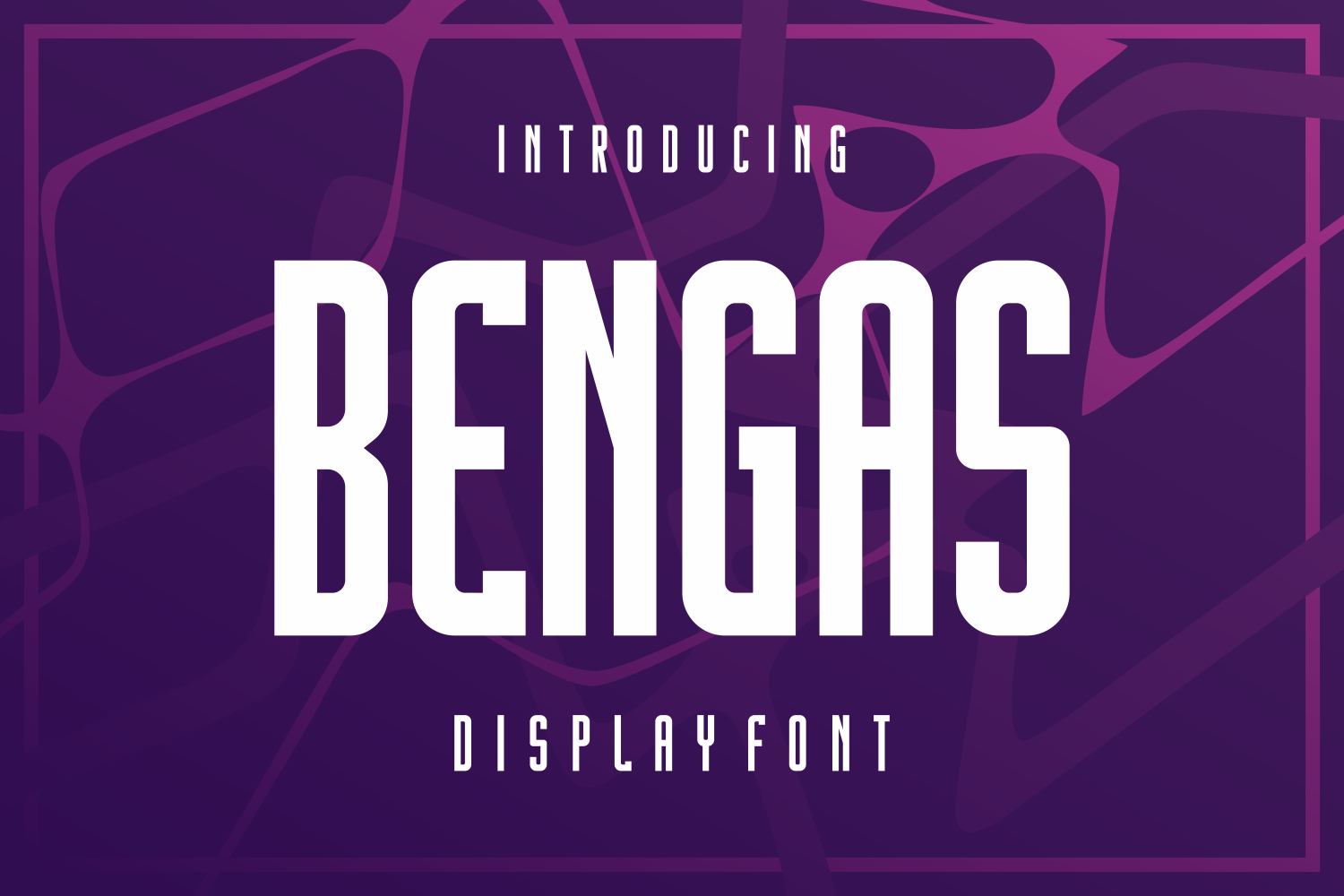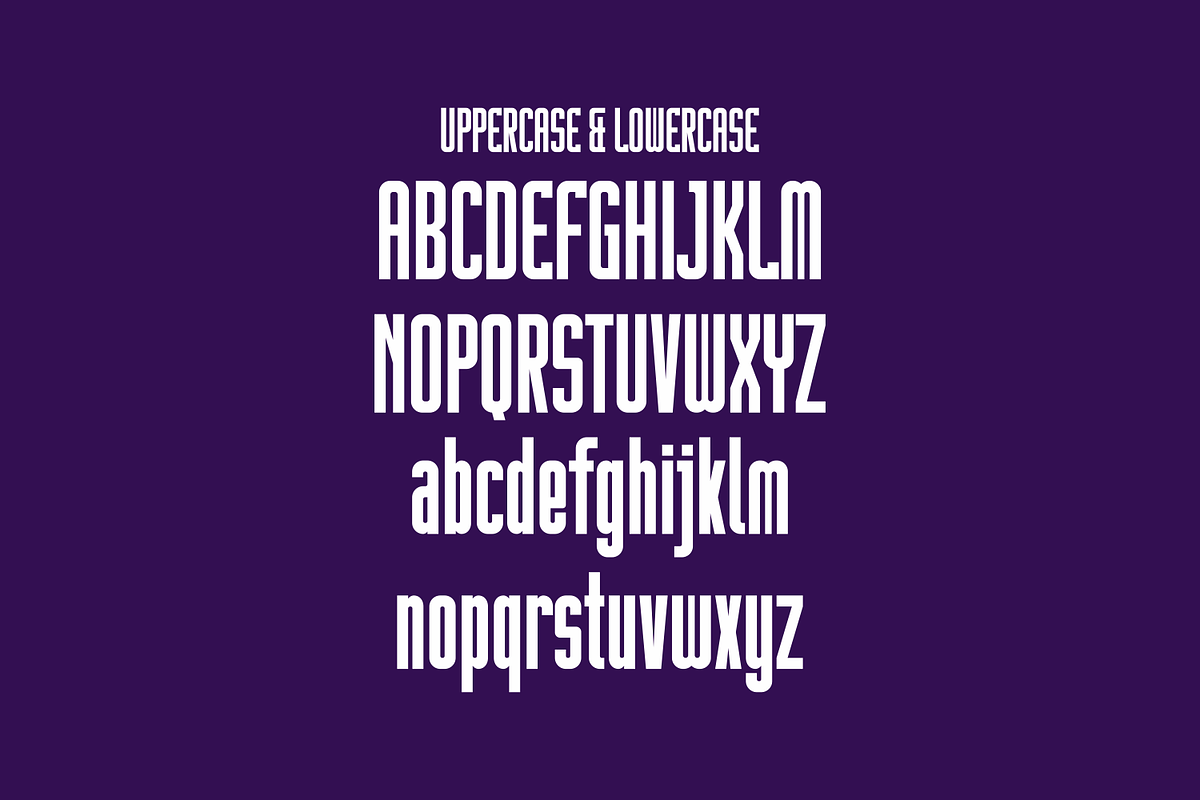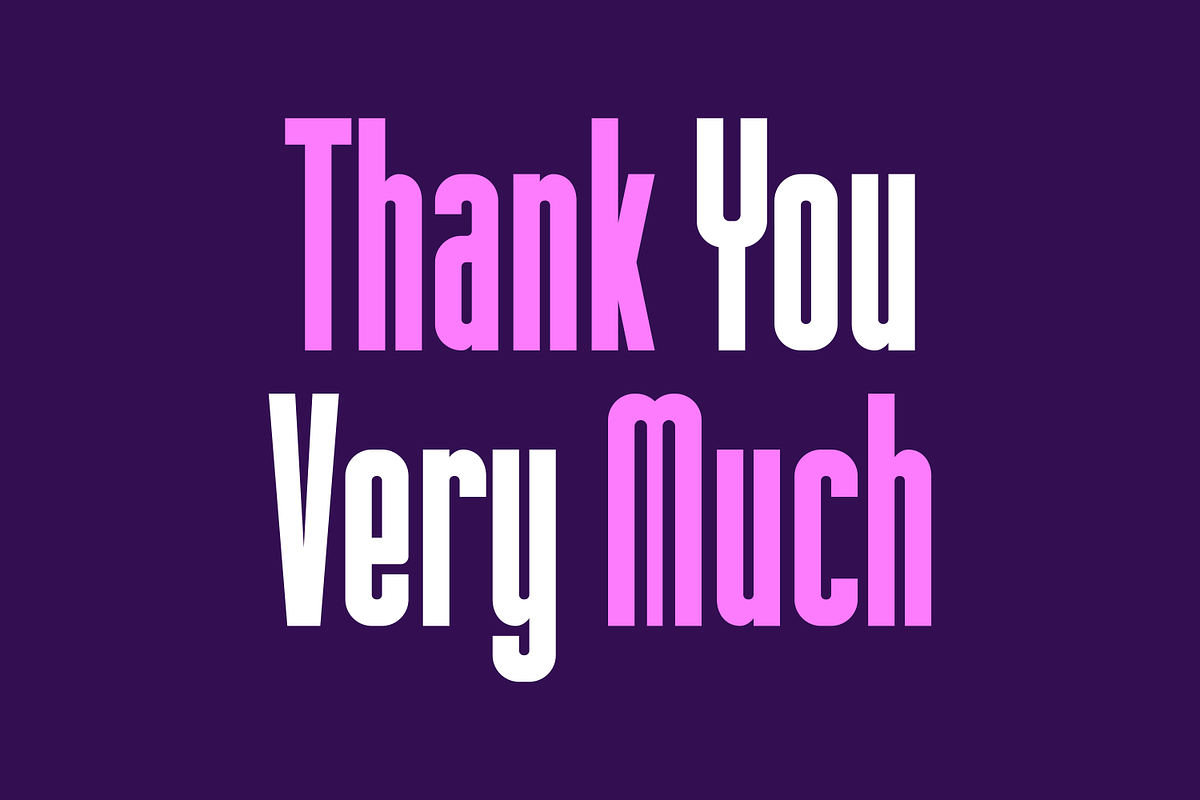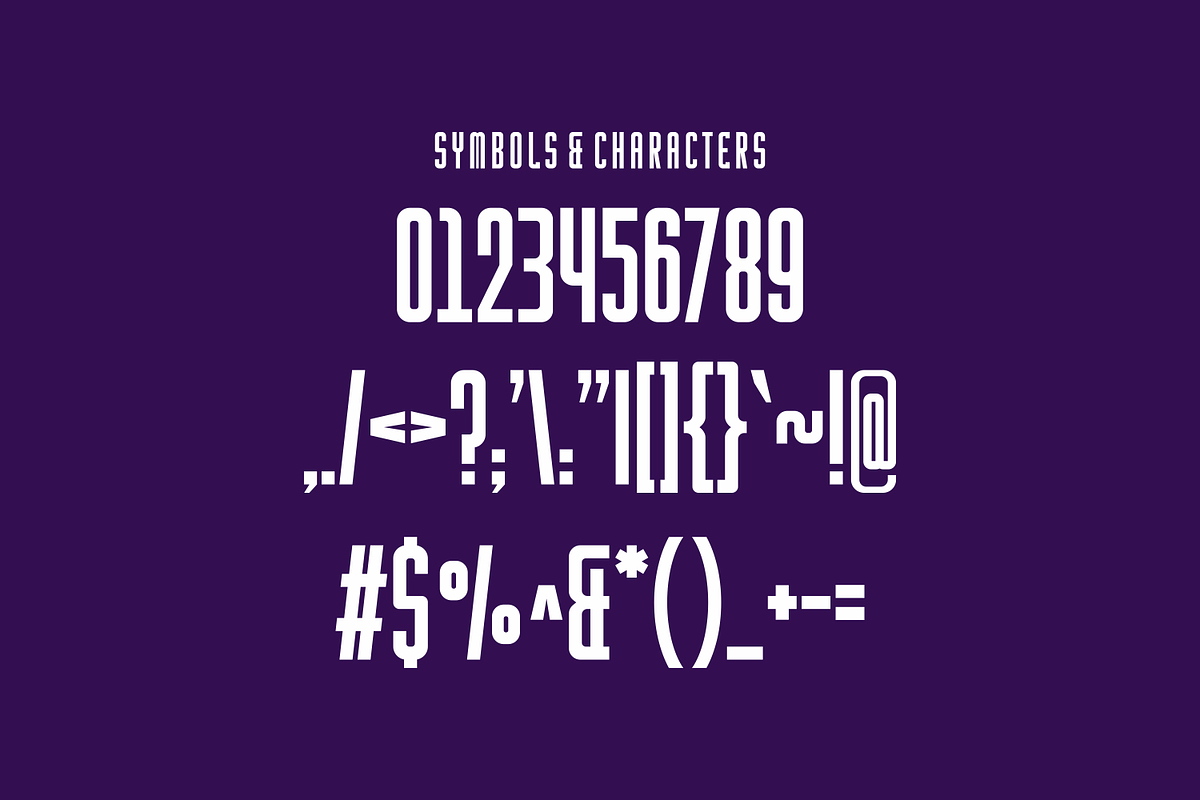
Bengas - Sans Serif Display Font
Bengas - Sans Serif Display Font Perfectly suited on print/screen. it’s perfect for Branding, name card, poster, logo, magazine, cover, banner, t-shirt and headers, or even large-scale artwork.